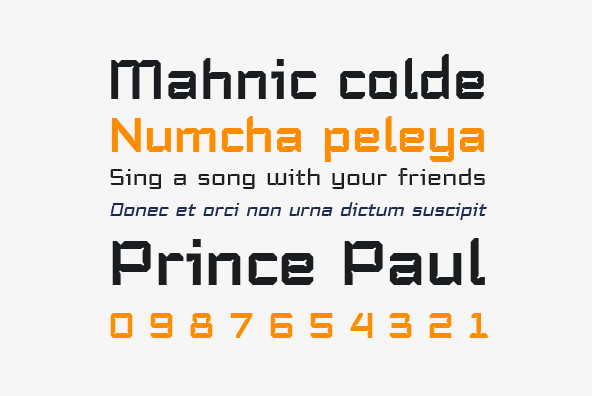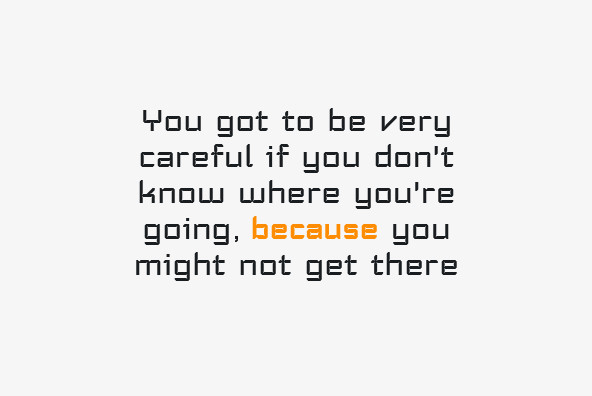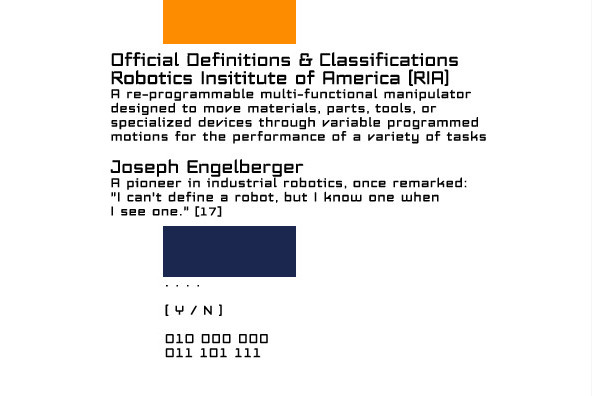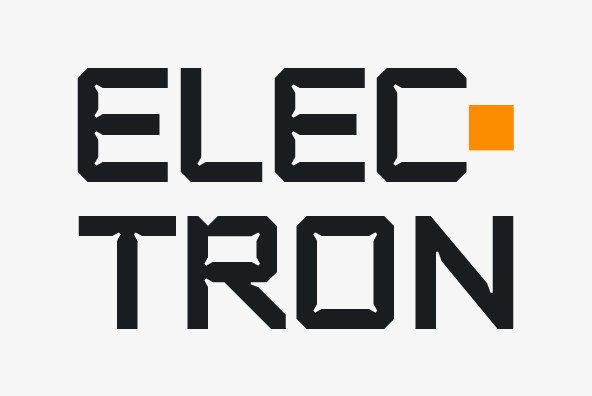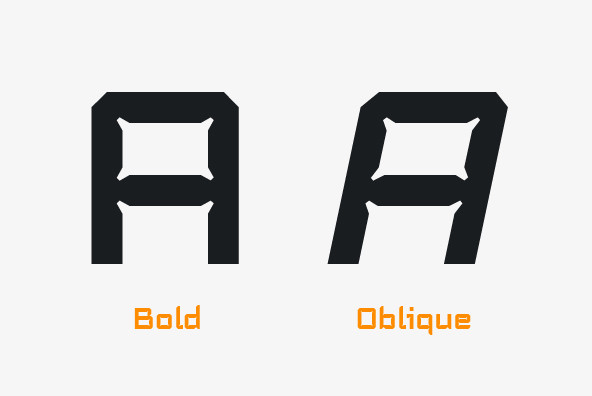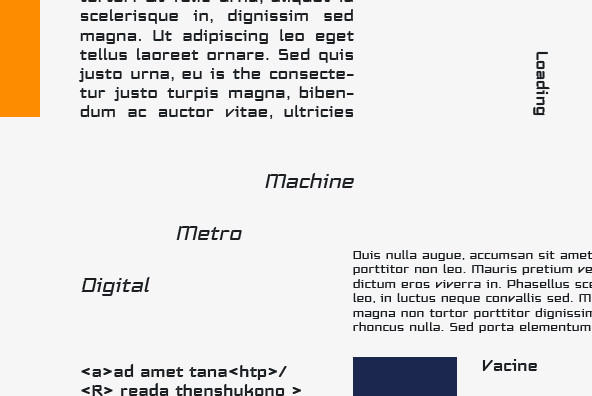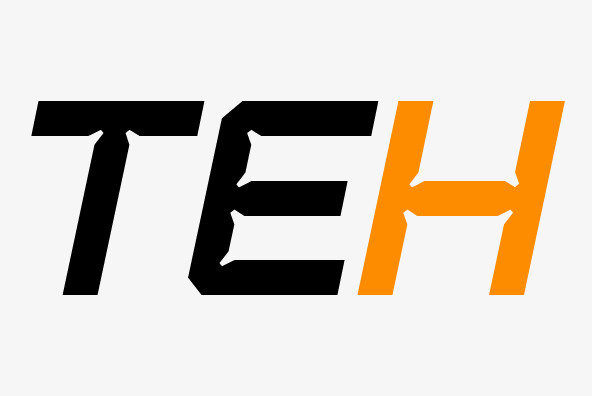
Trapper is so named because it exploits a typographic design mechanism known as ink traps purely for graphic effect.
Ink traps are a device used by type designers to create significantly higher legibility under adverse printing conditions, especially when the intended use of the type is to be printed at small sizes on mediocre substrate.
For Trapper the ink trap is overused for exaggerated visual effect. This gives the Round version a playful twisted balloons look while the Sharp has a stern mechanical default effect.
Trapper is a versatile font family of 8 fonts - sharp and round variations.